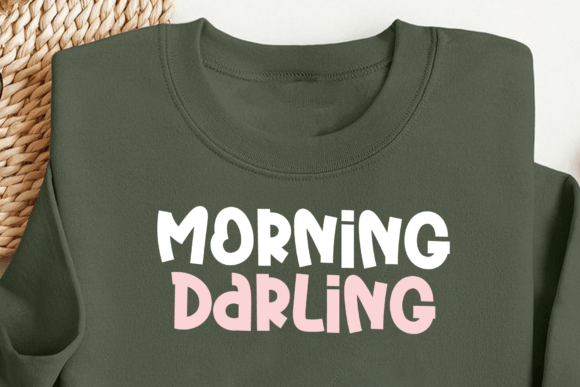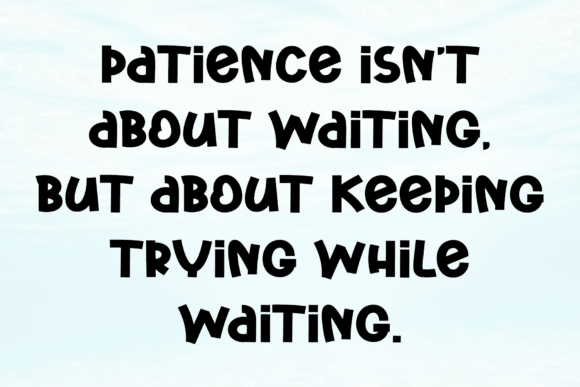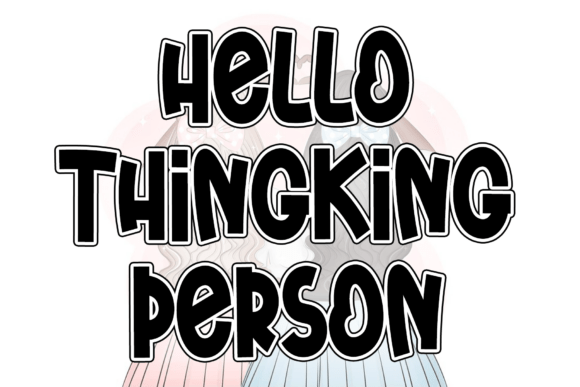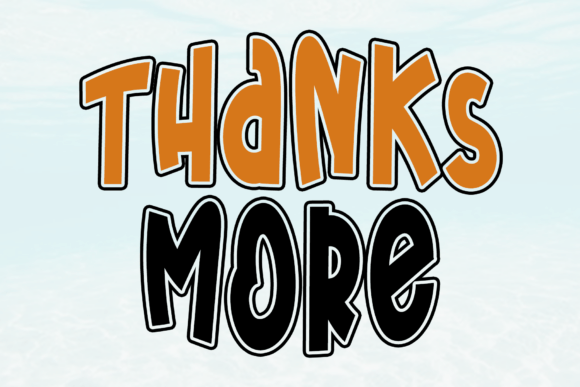
Fashion Flashback Font: A Timeless Handwritten Font for Designers and Crafters
Are you a designer or crafter looking for a font that can add a touch of elegance and sophistication to your designs? Look no further than the Fashion Flashback Font. This lovely and timeless handwritten font is perfect for creating eye-catching logos, branding, and quotes that will make your design come alive.
What Makes Fashion Flashback Font So Special?
Fashion Flashback Font is a unique and beautiful font that features a distinctive handwritten style. Every letter has a unique and beautiful touch, which sets it apart from other fonts. The font is designed to be highly legible and versatile, making it perfect for a wide range of design applications.
Fashion Flashback Font is the perfect choice for designers and crafters who want to create stunning logos, branding, and quotes. The font’s elegant and sophisticated style makes it ideal for luxury brands, fashion designers, and artists who want to add a touch of glamour to their designs.
Unique Characteristics of Fashion Flashback Font
So, what makes Fashion Flashback Font so unique? Here are some of its key characteristics:
- Handwritten style: Fashion Flashback Font features a beautiful handwritten style that adds a personal touch to your designs.
- Unique letterforms: Every letter in the font has a unique and beautiful touch, which sets it apart from other fonts.
- Highly legible: The font is designed to be highly legible, making it perfect for use in a wide range of design applications.
- Versatile: Fashion Flashback Font is a versatile font that can be used in a variety of design contexts, from logos and branding to quotes and social media graphics.
How to Use Fashion Flashback Font in Your Designs
Fashion Flashback Font is easy to use and can be incorporated into your designs in a variety of ways. Here are some ideas to get you started:
- Logos and branding: Use Fashion Flashback Font to create stunning logos and branding materials that will help your business stand out.
- Quotes and social media graphics: Add a touch of elegance and sophistication to your quotes and social media graphics with Fashion Flashback Font.
- Invitations and stationery: Use Fashion Flashback Font to create beautiful invitations and stationery that will make a lasting impression.
- Packaging and product design: Add a touch of glamour to your packaging and product design with Fashion Flashback Font.
Tips for Getting the Most Out of Fashion Flashback Font
Here are some tips for getting the most out of Fashion Flashback Font:
- Experiment with different colors and textures: Fashion Flashback Font looks great in a variety of colors and textures, so don’t be afraid to experiment and find the combination that works best for your design.
- Use it sparingly: Fashion Flashback Font is a bold and eye-catching font, so use it sparingly to avoid overwhelming your design.
- Pair it with other fonts: Fashion Flashback Font pairs well with other fonts, so try pairing it with a sans-serif font for a bold and modern look.
Fashion Flashback Font is a timeless and elegant handwritten font that is perfect for designers and crafters who want to add a touch of sophistication to their designs. With its unique letterforms, highly legible style, and versatility, Fashion Flashback Font is the perfect choice for a wide range of design applications. Whether you’re creating logos, branding, quotes, or social media graphics, Fashion Flashback Font is sure to make your design come alive.